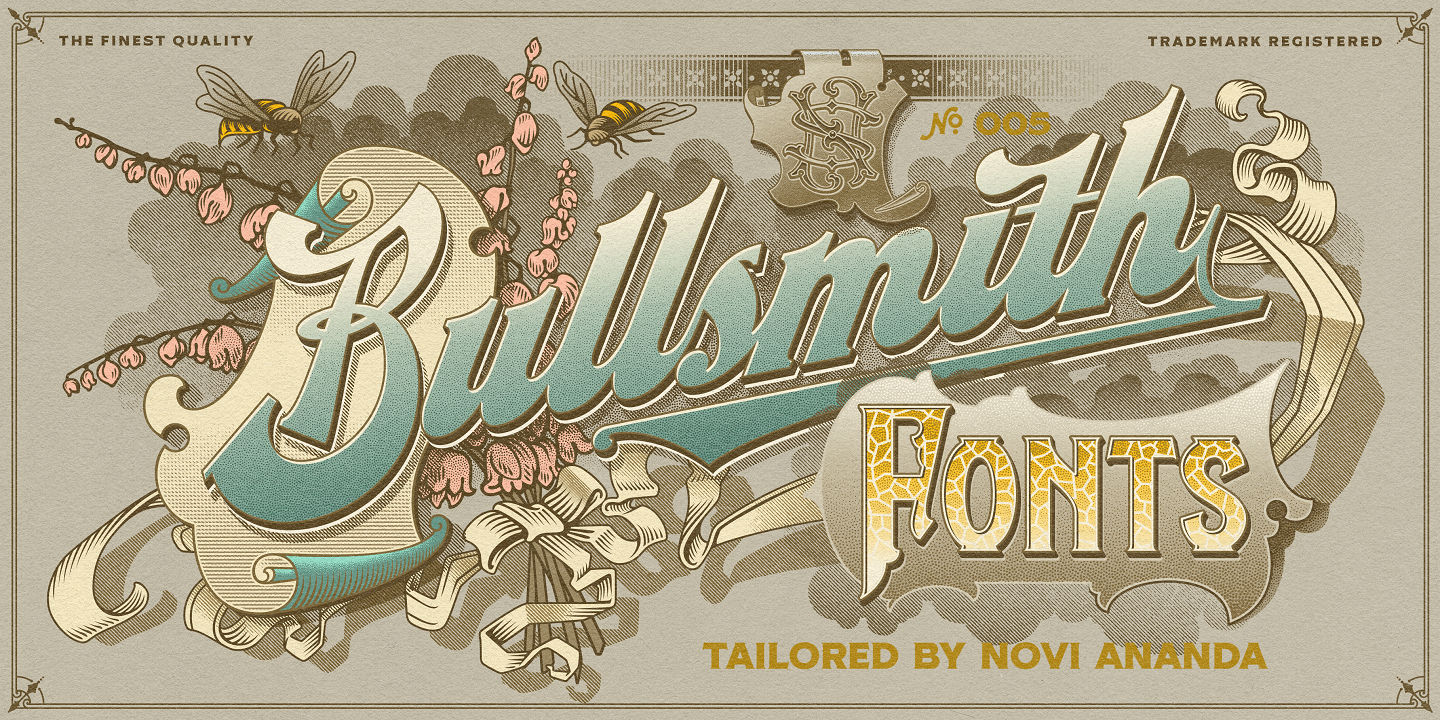
NS Bullsmith Font is a bold and impactful display typeface that embodies the rugged strength and authentic craftsmanship of traditional industrial lettering or vintage signage. Its sturdy construction and commanding presence make it an excellent choice for projects demanding a powerful visual statement with a touch of timeless reliability. Imagine it perfect for craft brewery branding, robust outdoor adventure logos, vintage motorcycle club designs, impactful event posters, heavy-duty product packaging, or commanding headlines for action-oriented content. This font excels in environments where a sense of durability, authenticity, and an unmistakable, no-nonsense character are paramount. It’s particularly effective for conveying raw power and enduring quality, ensuring your message stands out with an authoritative and memorable impact.
What makes NS Bullsmith Font truly exciting is its ability to seamlessly blend a vintage, almost hand-forged aesthetic with a modern, assertive edge. It often features strong, block-like forms or subtle textured details that give it a distinctive, almost tactile appearance, making it highly legible even in challenging applications. This font isn't just about displaying text; it's about making a powerful declaration, injecting your designs with a sense of purpose and unyielding spirit. It has a powerful ability to feel both incredibly strong and surprisingly versatile, making it an ideal tool for designers who want their work to convey strength, reliability, and a truly memorable visual impact. NS Bullsmith Font empowers brands and creatives to project an image of unwavering confidence and robust character.
The NS Bullsmith Font family typically offers a range of weights and styles to ensure maximum versatility for diverse design projects. You'll often find it includes a spectrum from regular to bold and even ultra-bold or black weights, providing robust options for typographic hierarchy and emphasis. Corresponding italic styles may also be available, allowing for dynamic variations in text presentation. This extensive family ensures that NS Bullsmith Font Free Download can adapt seamlessly to any design challenge, from powerful headlines that demand attention to clear, impactful sub-headings, all while maintaining a consistent and harmonious visual language. Its broad character set usually covers a wide range of Latin characters, numbers, and extensive punctuation, making it suitable for international projects and complex textual layouts.